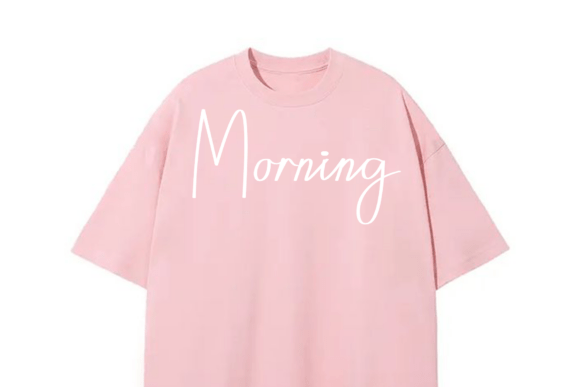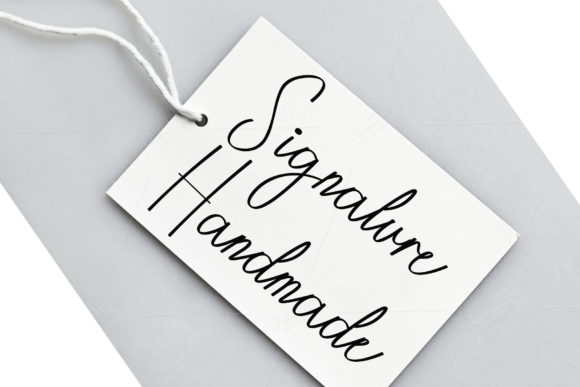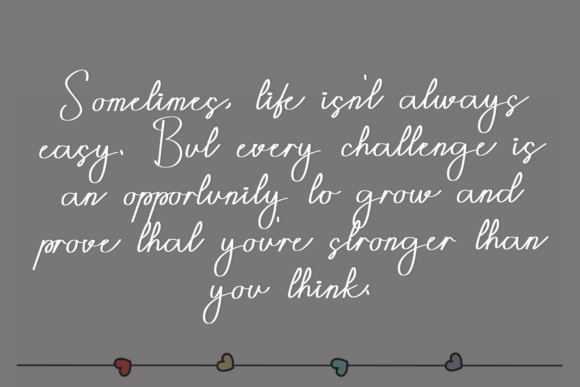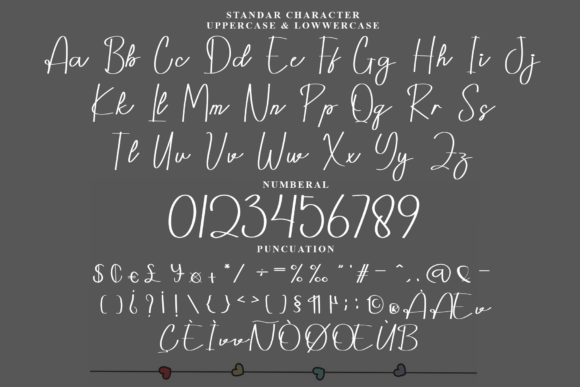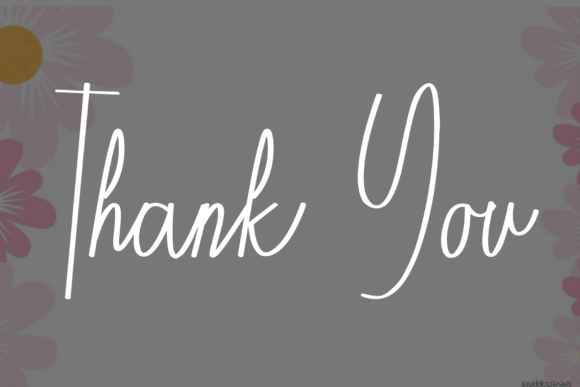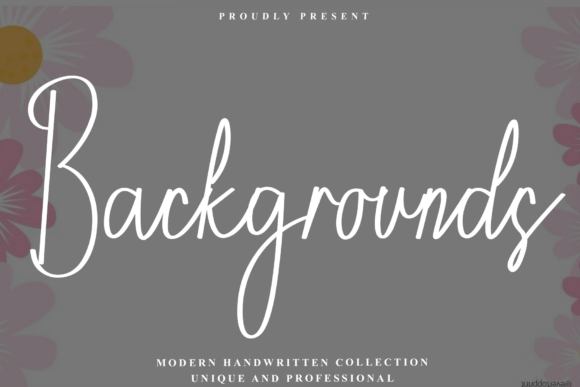
Discover the Elegance of Backgrounds Font: A Unique Addition to Your Typography Arsenal
In the realm of typography, the right font can elevate your design from ordinary to extraordinary. For designers and crafters seeking a typeface that embodies clarity, elegance, and a touch of sophistication, Backgrounds Font stands out as a remarkable choice. This modern handwritten font is meticulously designed to bring a sense of freshness and refinement to various design projects, making it an ideal selection for those aiming to leave a lasting impression.
The Distinctive Characteristics of Backgrounds Font
Backgrounds Font is characterized by its tall, thin strokes and a subtle, airy slant, which collectively contribute to its unique and professional appearance. This distinctive design ensures that the font exudes a refined aesthetic, reminiscent of the crispness and clarity associated with a mountain breeze. The clean and approachable style of Backgrounds Font makes it exceptionally versatile, suitable for a wide range of applications, from travel photography and outdoor gear branding to sophisticated web design.
Ideal Applications for Backgrounds Font
The versatility of Backgrounds Font is one of its most compelling attributes. Here are some of the ideal applications where this font truly shines:
- Travel Photography: For travel photographers and bloggers, establishing a visual identity that resonates with the essence of exploration and adventure is crucial. Backgrounds Font, with its airy and elegant feel, perfectly complements travel-related content, adding a touch of wanderlust and sophistication to photographs, blog posts, and social media updates.
- Outdoor Gear Branding: Brands that specialize in outdoor gear and equipment often seek to convey a sense of ruggedness, reliability, and adventure. Backgrounds Font offers a balanced blend of elegance and approachability, making it an excellent choice for branding purposes. It helps in creating a distinctive identity that stands out in the outdoor gear market.
- Sophisticated Web Design: In the digital realm, the choice of typography can significantly influence user experience. Backgrounds Font, with its clean and refined aesthetic, is well-suited for web design projects that aim to offer a seamless and elegant browsing experience. Its readability and unique charm make it an excellent choice for headings, titles, and any content that requires a touch of sophistication.
Why Choose Backgrounds Font?
Choosing Backgrounds Font for your design projects comes with several advantages:
- Unique and Professional: In a sea of fonts, Backgrounds Font offers a unique and professional look that can set your designs apart.
- Versatility: Its clean and approachable style makes it suitable for a variety of design applications.
- Elegance and Clarity: The font’s design ensures that your message is conveyed with elegance and clarity, making it perfect for projects where typography plays a crucial role.
Backgrounds Font is a remarkable addition to the world of typography, offering a unique blend of elegance, clarity, and sophistication. Its distinctive design, versatility, and suitability for various applications make it an invaluable resource for designers and crafters. Whether you’re working on travel photography, outdoor gear branding, or sophisticated web design, Backgrounds Font has the potential to elevate your projects to new heights. Embrace the elegance and professionalism that Backgrounds Font brings to the table, and discover the difference it can make in your design endeavors.